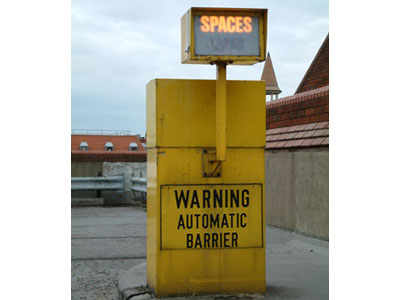
Jackie
Ponwaye. Lincoln, Great Britain, June 2003.
Spaces. I think this is a great image
to finish with. Its a rather old sign located on the top of the Lincoln
Co-op store, where I often park my car. As you can see, the barrier
to which it refers is no longer there. I was disappointed I was unable
to get a photograph of its former lives. The barrier started off as
a normal size and got shorter and shorter until eventually it was
only a foot long and had the white letters S T O P on a red background
which hung from it. It gradually became a shadow of its former self
until, as can be seen here, it has given up the ghost
and no longer exists.